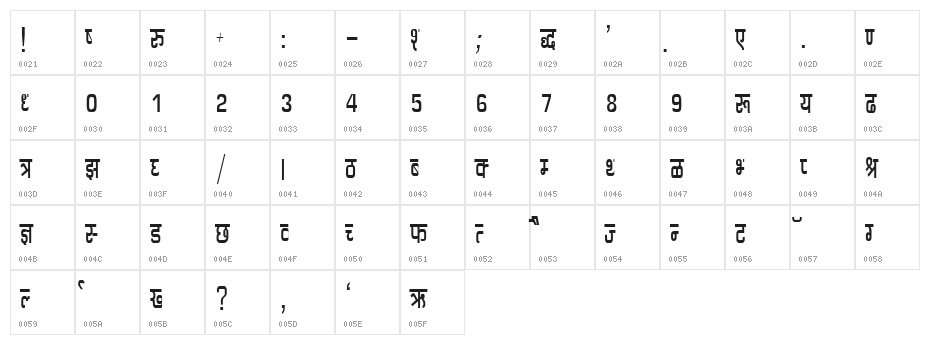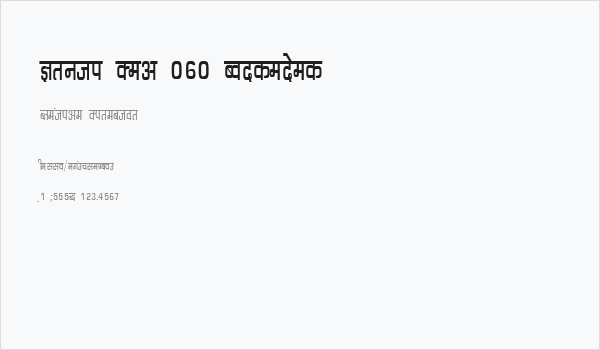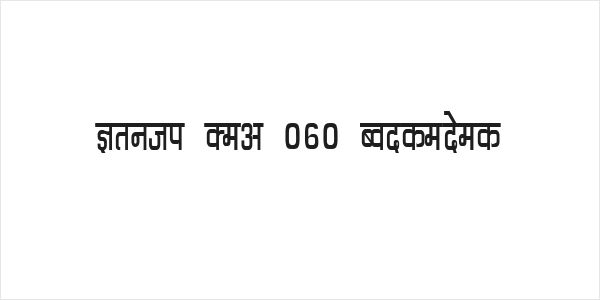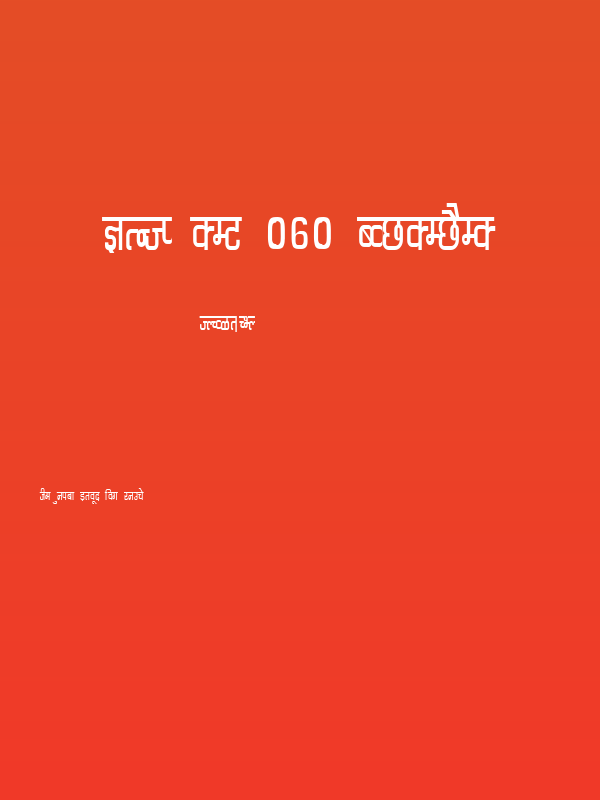
Kruti Dev 060 Condensed Font
Kruti Dev 060 Condensed Description
This font features a condensed style with a strong presence, characterized by its bold and structured letterforms. The characters are tightly spaced, giving it a compact appearance. The strokes are consistent in thickness, providing a uniform look across all characters. The font includes a full set of numerals and a variety of special characters, making it versatile for different uses. Its design is modern yet retains a classic touch, suitable for both digital and print media. The font's clean lines and clear legibility make it an excellent choice for headlines and titles.
| Use Case | Headlines, Posters, Branding |
| Proposed Projects | Ideal for headlines, posters, and branding materials where a strong visual impact is needed. |